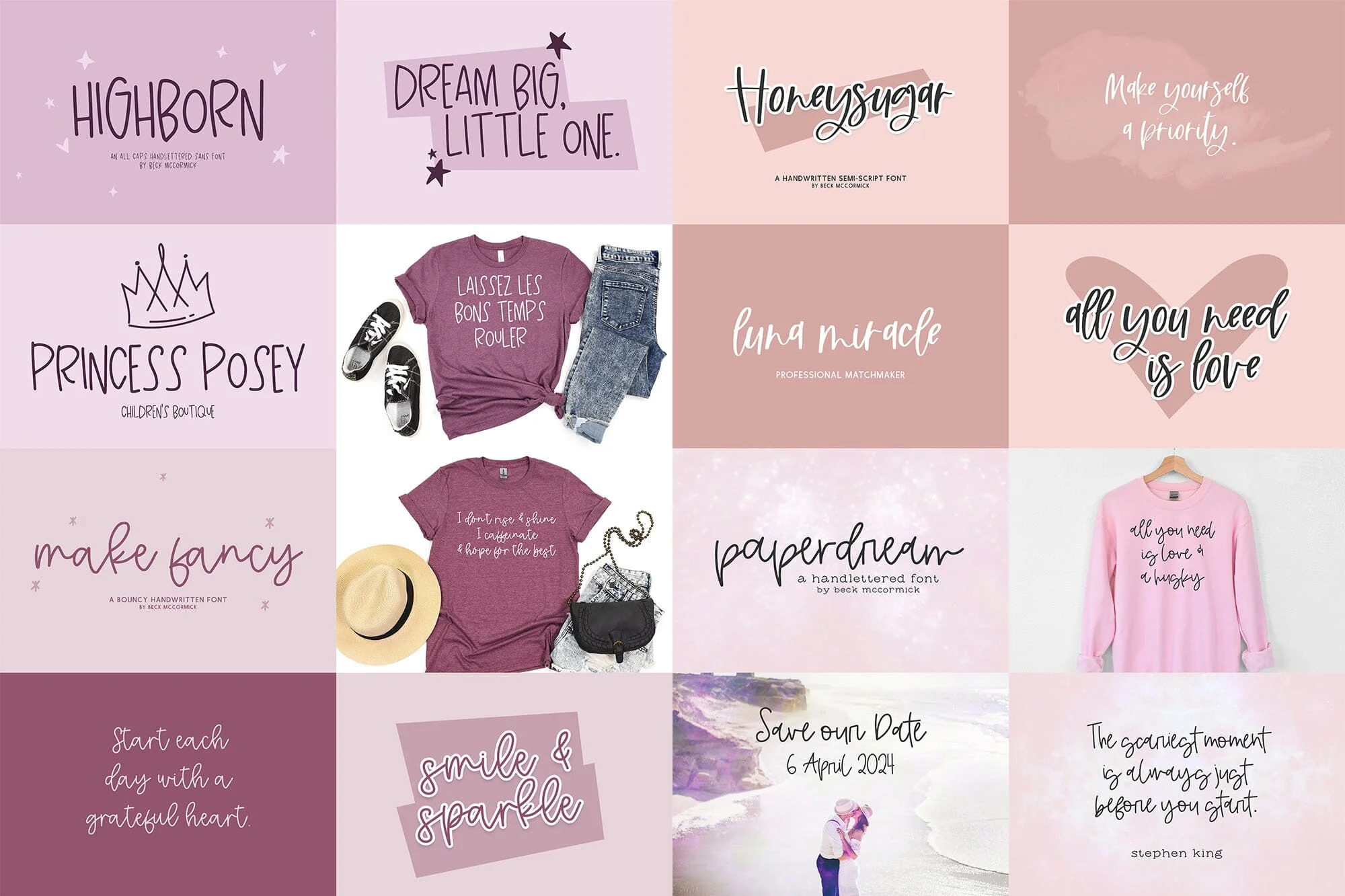
The Planner Font Bundle Volume 2
Introducing the Planner Font Bundle Volume 2, which includes 12 fonts! This bundle was curated with the planner-obsessed in mind - who doesnāt love cute fonts to use in GoodNotes, Procreate, or Notability?!
Blossomly Script
Boondoggle Script
Cherry Grove Script
Foxbrook Script
Highborn All Caps Sans
Honeysugar Script
Make Fancy Script
Paperdream Script
Sparkleshine Script
Starstruck Script
Sublimity Script
Wisterian Script
- use with your favorite planner app (GoodNotes, Notability, or Procreate) to make some super cute weekly & monthly planners
- use as guidelines for handwriting practice - perfect for teachers that are teaching penmanship, or for the casual learner
- use to jazz up your note-taking for your latest classes in school - kept things totally legible but cute, making it even more fun to study
- use to create cute flyers, posters, or classroom elements for bulletin boards, name tags, & more